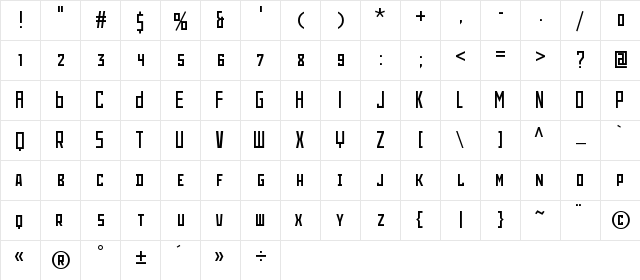
Volkerball Serbia Regular
Design Context for Volkerball Serbia Typeface
Volkerball Serbia is a composed and adaptable typeface that performs quietly and consistently across a wide range of design contexts.